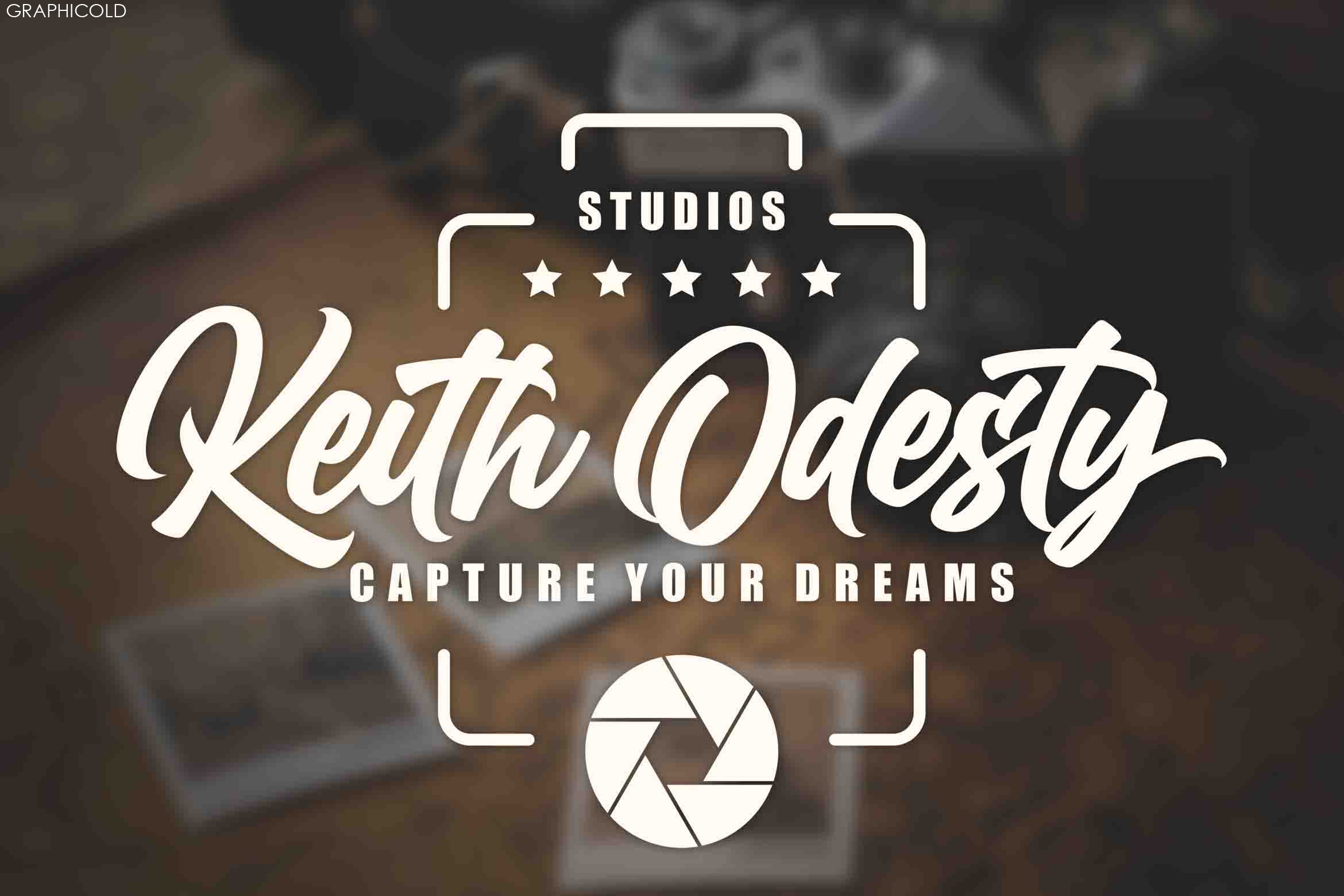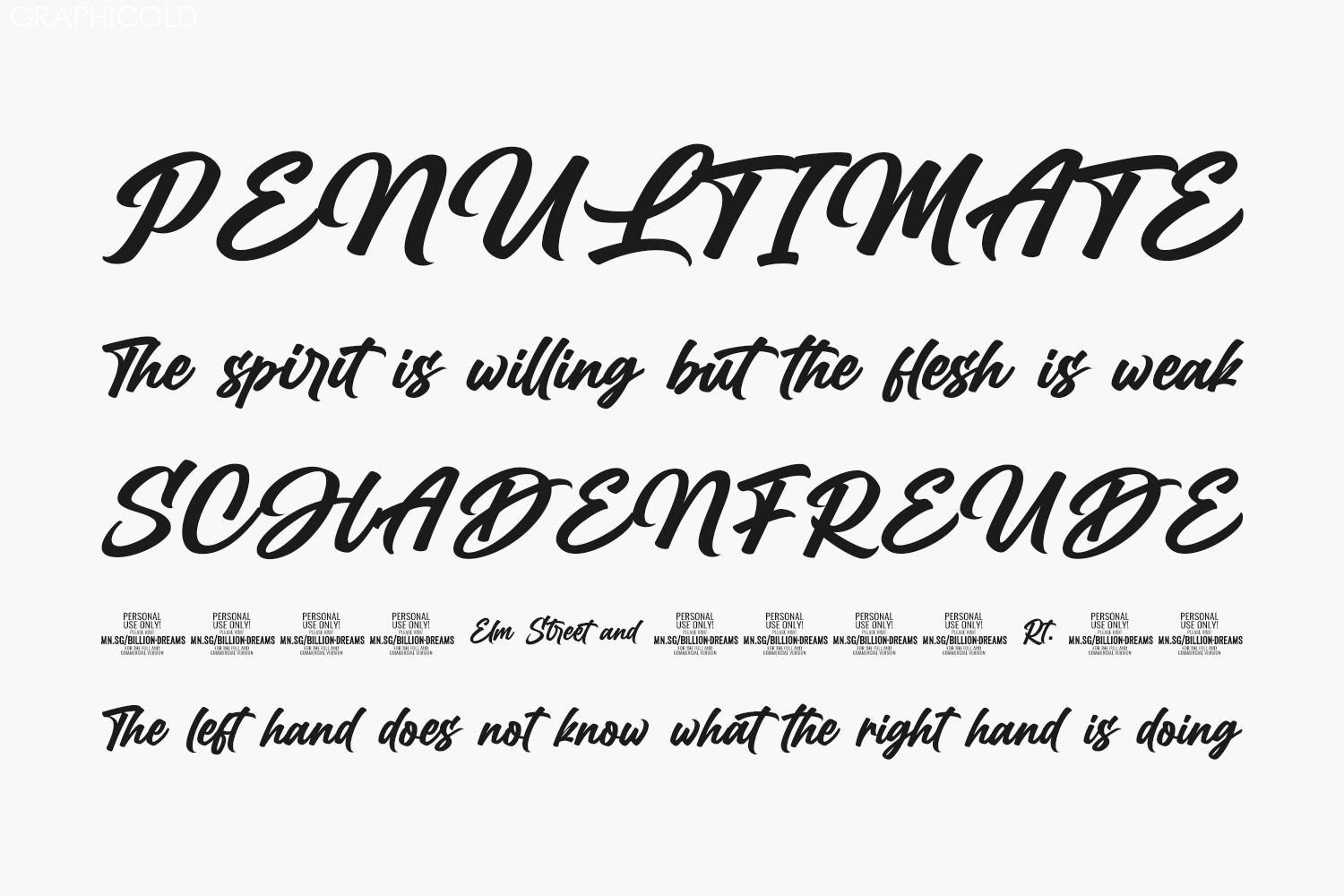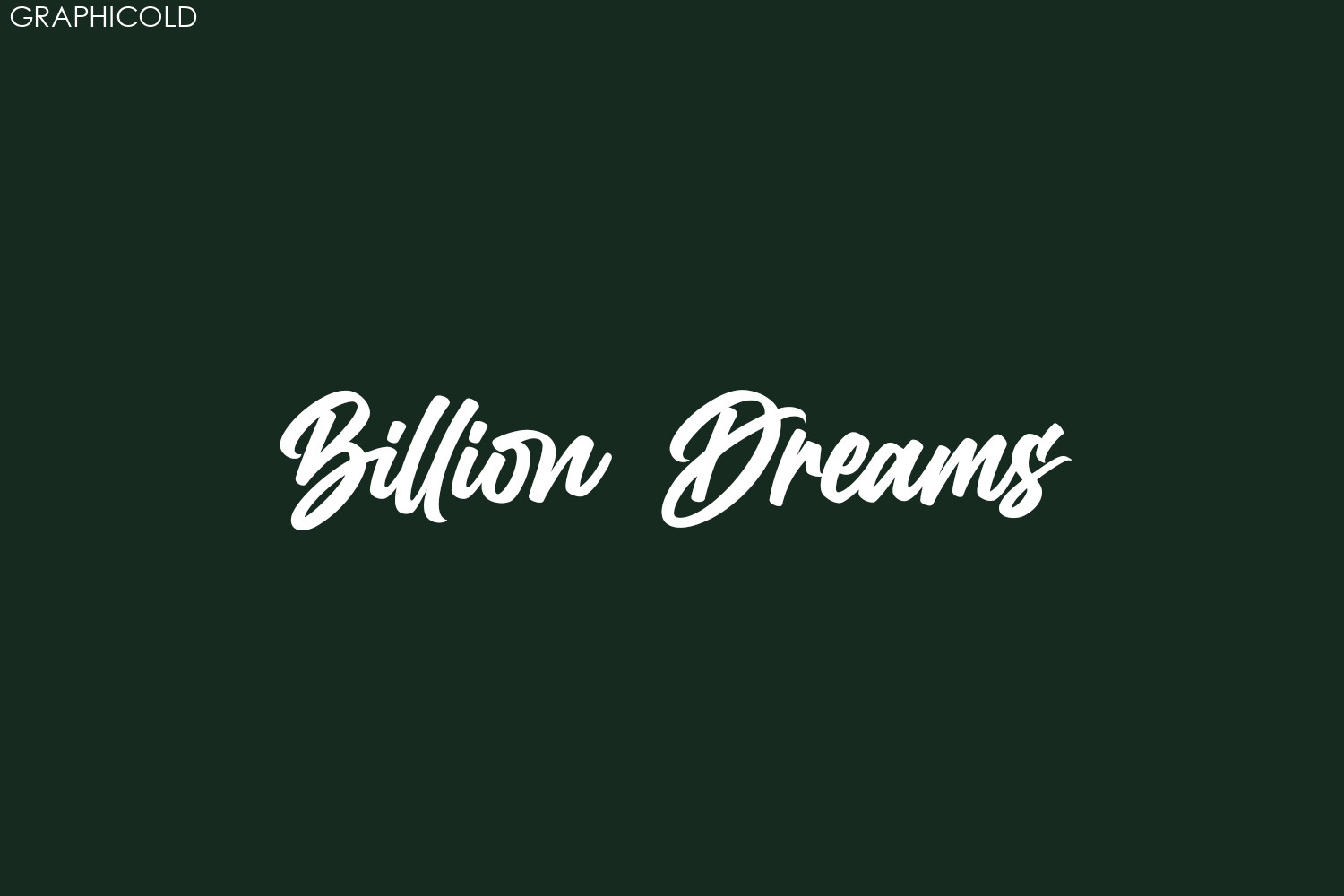
When it comes to design projects, choosing the right font can make all the difference. It sets the tone, enhances readability, and adds personality to your work. If you’re tired of using the same old fonts and want to make a lasting impression, look no further than Billion Dreams Font.
Billion Dreams Font is a versatile and stylish typeface that can elevate any design to the next level. It offers a unique combination of elegance, modernity, and playfulness that is sure to capture attention. Whether you’re working on a logo, website, or any other creative project, this font will make your work stand out from the crowd.
One of the key reasons why Billion Dreams Font is a must-have for designers is its wide range of styles and weights. It comes in a variety of variations, including regular, bold, italic, and more. This allows you to experiment and find the perfect combination that suits your project’s needs. With this font, you have the freedom to create stunning designs that align with your vision.
Another standout feature of Billion Dreams Font is its excellent readability. No matter the size or format of your text, this font ensures that your message is clear and easy to understand. It strikes the right balance between being eye-catching and legible, making it suitable for various applications, from print to digital media.
In addition to its aesthetic appeal and usability, Billion Dreams Font also boasts extensive language support. It covers a wide range of languages, making it an ideal choice for international projects. Whether you’re targeting a global audience or need to incorporate different languages into your design, this font has got you covered.
In conclusion, Billion Dreams Font is a game-changer for designers looking to inject creativity and originality into their work. With its stylish design, versatility, and excellent readability, this font is an asset for any creative project. So why settle for ordinary fonts when you can download Billion Dreams Font and make your designs truly extraordinary? Don’t miss out on this exciting typeface and give your projects the attention they deserve.